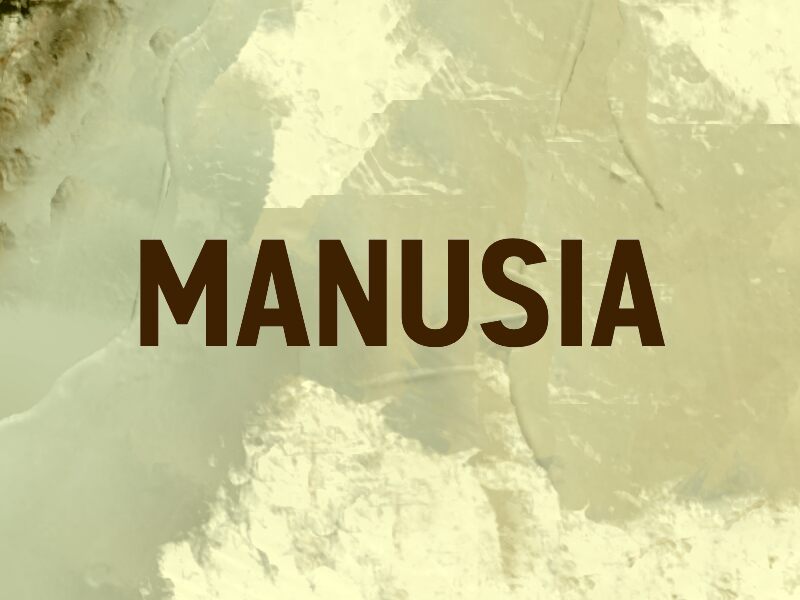
M Manusia font is a harmonious, functional type design inspired by transitional art trends. The free font by wep combines a modern, elegant, and timeless feel that can have wonderful effects on the typography of your next project. Simple, but also versatile in its function, this premise of this family is rooted in its utility without taking much away from aesthetics.
Apply M Manusia in your branding, corporate design, or other contemporary applications, combining it with graphics and colors that align with your project. The sans generates excellent readability in a clean, straightforward way. Build the visual identity of your business with a logo, applications, and website typography that resonates with your values.
Manusia is a modern, stylish free font designed to bring a fresh look to your projects. Perfect for both digital and print uses, this font combines elegance with readability, making it an excellent choice for headlines, branding, and web design.
The unique characteristics of Manusia make it stand out, allowing your text to convey personality and charm. Whether you are creating a logo, designing a flyer, or working on a website, this versatile font enhances your creative expressions.